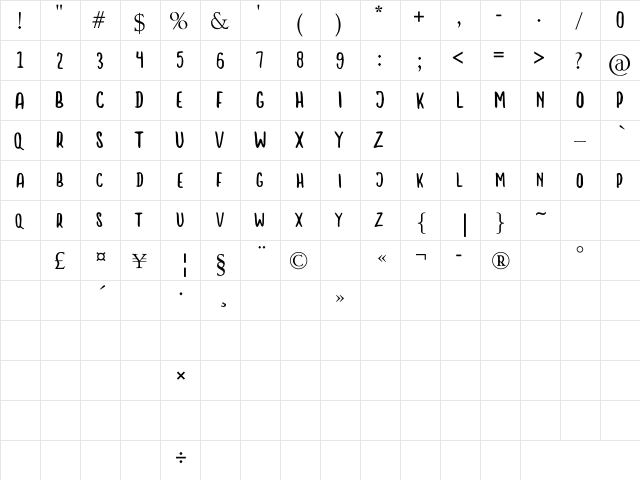
Little Boss Regular
Design Context for Little Boss Typeface
Little Boss is a composed and adaptable typeface that performs quietly and consistently across a wide range of design contexts.
Pro Tip: Pair Little Boss with a font of contrasting weight or personality to build a more expressive typographic hierarchy.